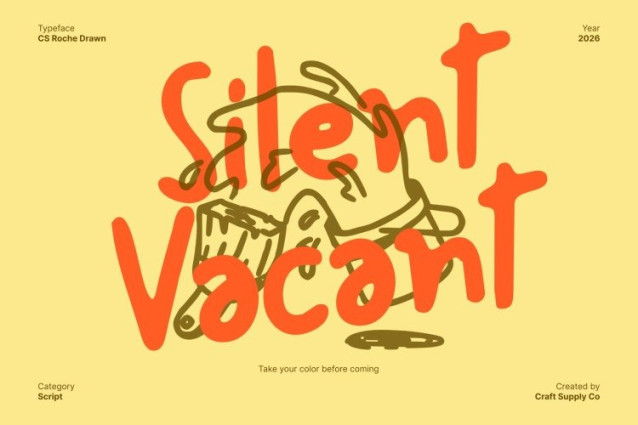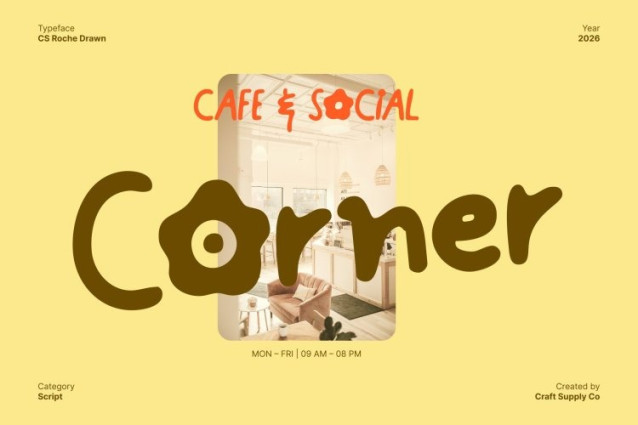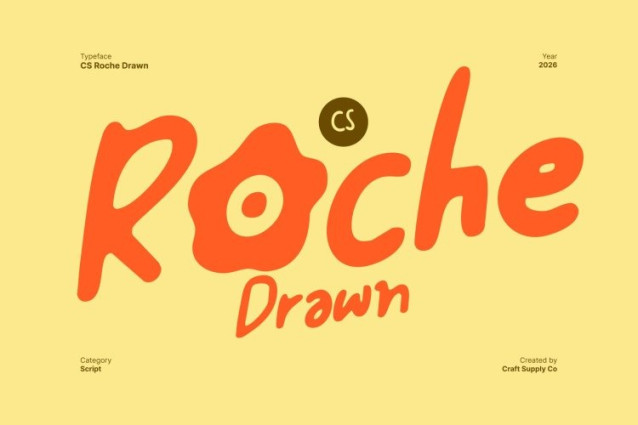
CS Roche Drawn Font
CS Roche Drawn Font This is a playful handwritten sans serif font designed to radiate warmth, creativity, and approachability. Its lively, hand-drawn strokes and organic flow create a natural rhythm, while subtle floral inspiration adds a refreshing, nature-driven charm. The drawn effect gives each letter a soft, personal character that feels joyful and full of life.
Natural Flow with Hand-Drawn Expression
Every letter in this font carries expressive movement, shaped by gentle curves and slightly irregular strokes. This handcrafted quality enhances its friendly tone, making the typography feel relaxed, human, and engaging perfect for designs that want to communicate authenticity and warmth.
Floral Influence for Organic Playfulness
Inspired by the softness and balance of floral forms, this font reflects natural beauty through rounded shapes and lighthearted proportions. The subtle nature influence keeps the design fresh and uplifting, adding an organic touch without overpowering readability or clarity.
Perfect for Modern, Fun, and Expressive Designs
From branding and packaging to posters, editorials, and social media graphics, this font adapts effortlessly to playful and creative settings. Its expressive energy, drawn texture, and casual charm make this font an ideal choice for designers seeking personality, freshness, and natural storytelling in their typography.